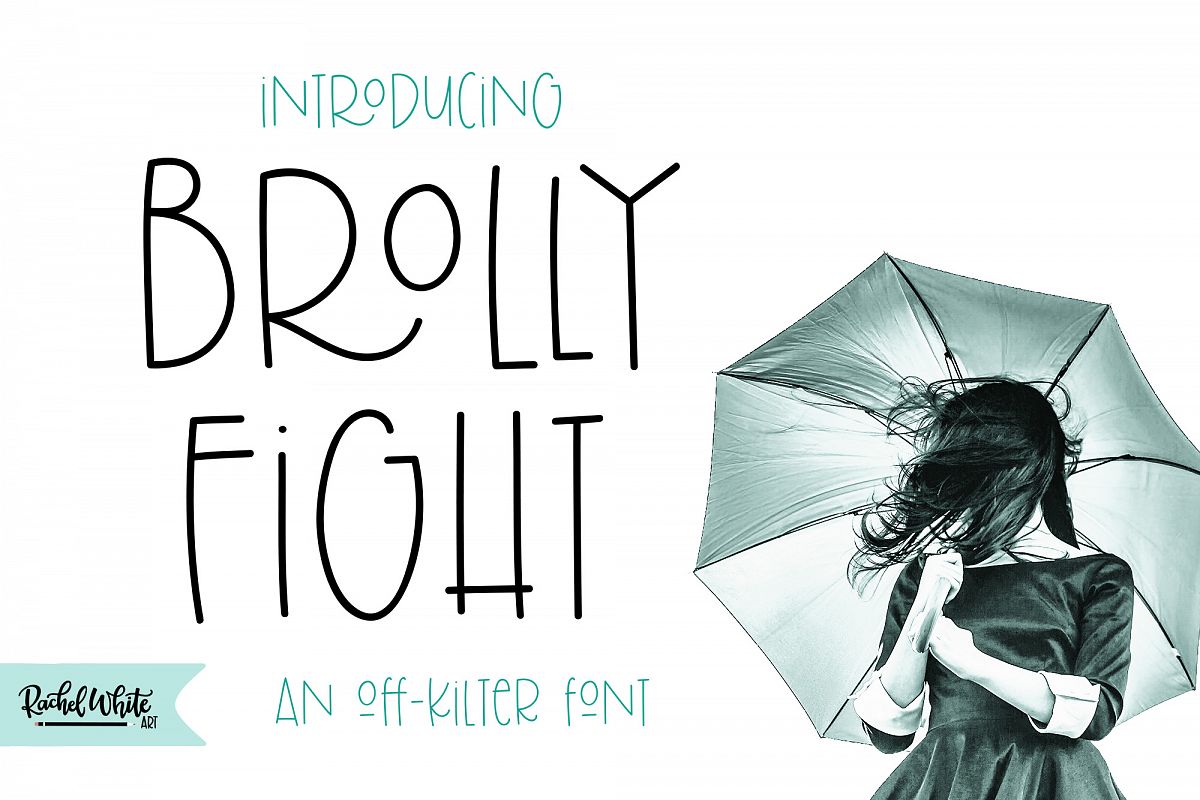
Brolly Fight is one of my best selling fonts!
Brolly Fight is a fun, slim line font with off-kilter lines. I had so much fun creating this one! It has a stick figure art deco feel. It's fun and playful, with lots of ligatures and alternates to play with. Mix and match lowercase and uppercase letters for a unique look.
There are four alternate ampersands, and fun double letter ligatures, as well as playful ligatures for r, k + a, e, o, u combinations. That high lowercase o with an underscore has a twin lowercase a alternate you can access too!
- a ton of ligatures and alternates
- Mix and match capitals and lowercase (plus the ligatures & alternates) to create unique text designs